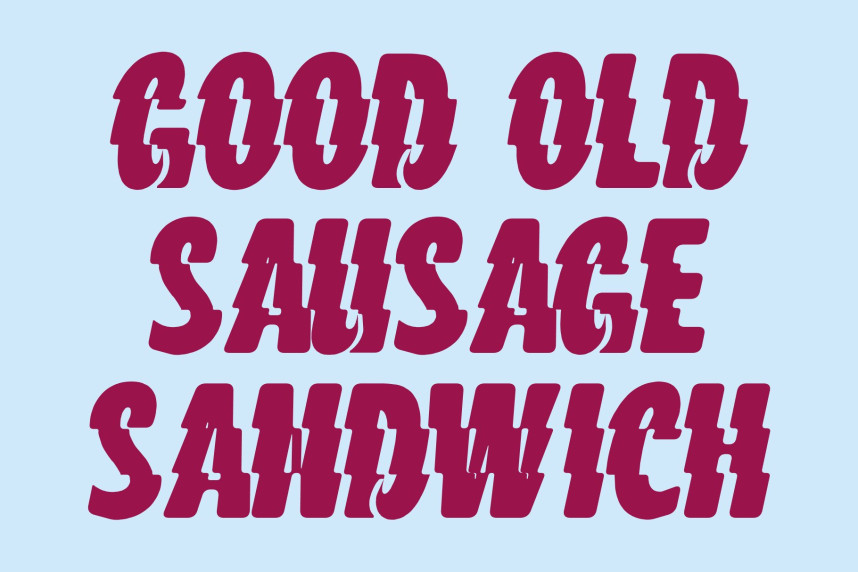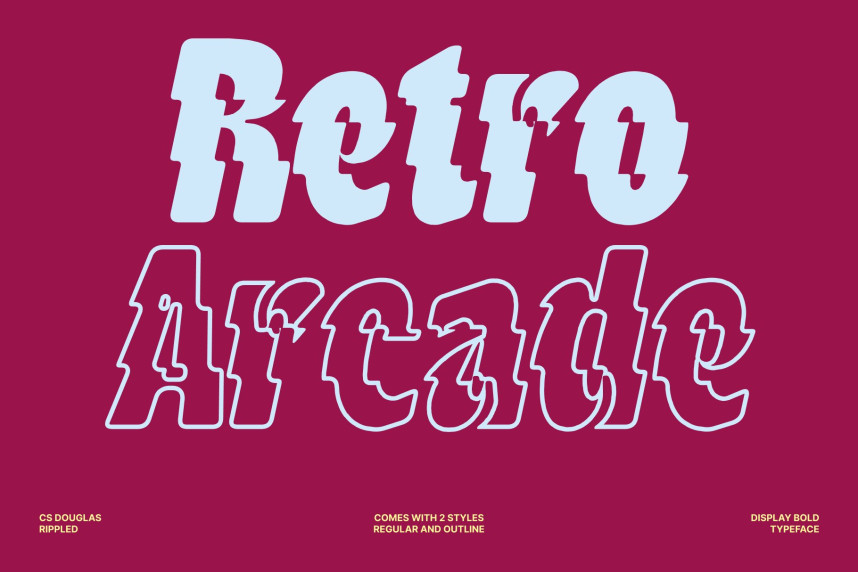
CS Douglas Rippled Font
CS Douglas Rippled Font – Bold Sans Serif Font with Inktrap Precision and Liquid Motion
Modern, Bold, and Uniquely Expressive
This is a modern sans serif font that combines bold geometric structure with sharp inktrap detailing to create a striking and highly expressive visual identity. The strong letterforms project confidence and authority, while the precise inktrap cuts introduce a refined technical character that enhances both style and readability.